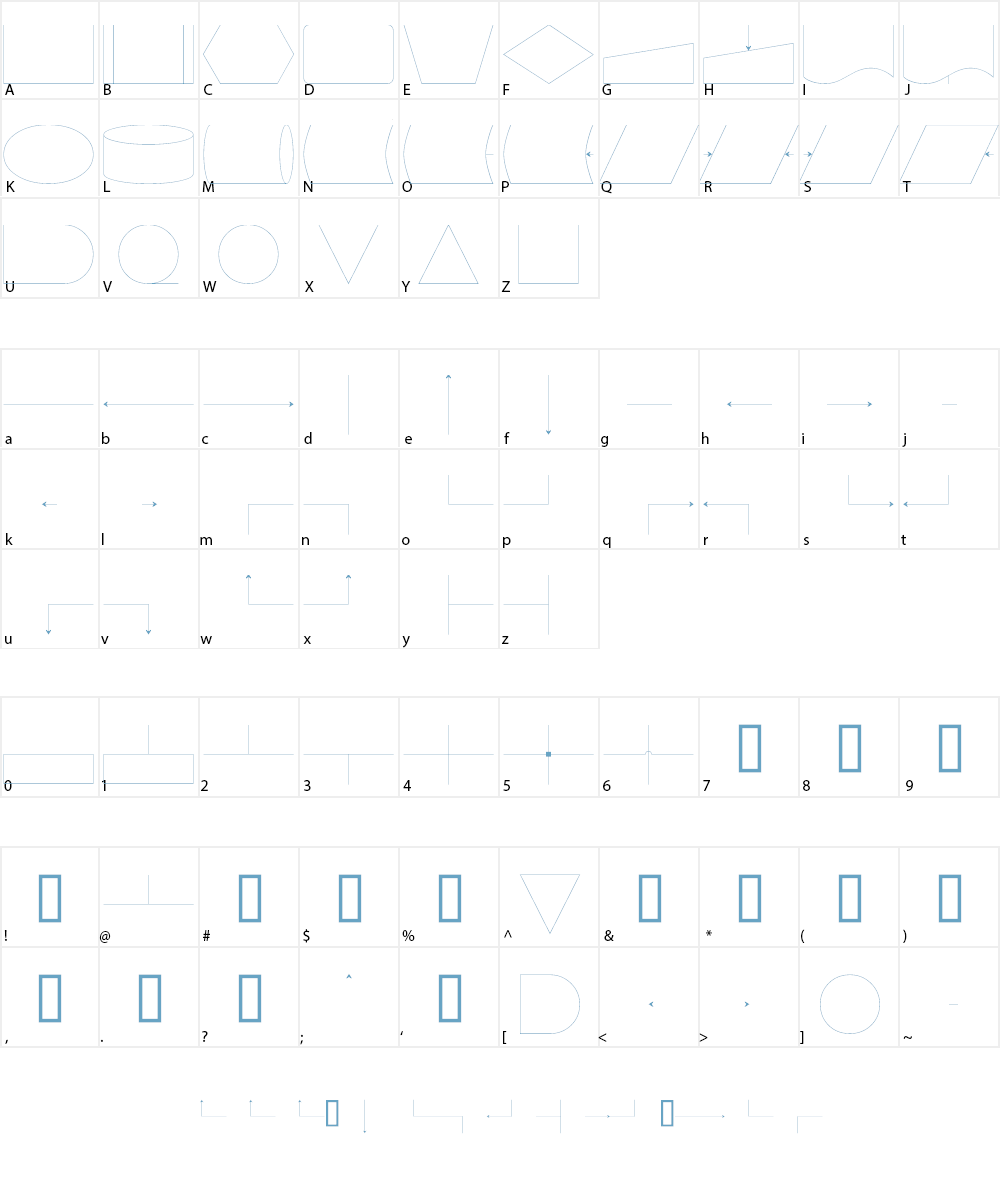
This FlowChart font has been specifically designed for use with Word Processing and Publishing programs that enable overlaid text boxes or frames. It is based on a concept of an ordered (tiled) layout (similar to using a monospaced font), to line up shapes and connecting lines.